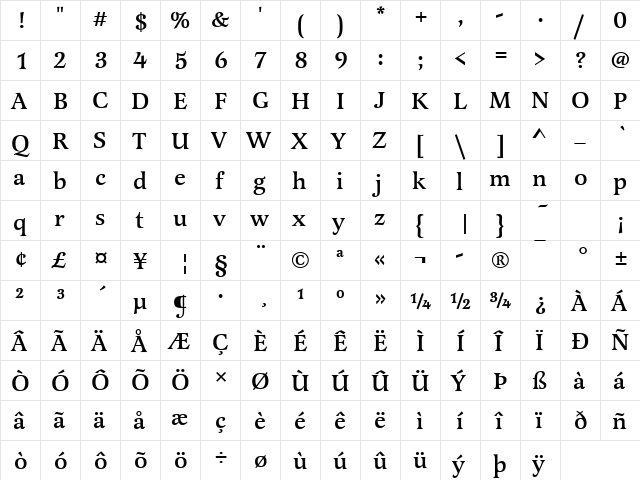
LatienneTMed Regular
Design Context for LatienneTMed Typeface
LatienneTMed offers clean, dependable letterforms without strong stylistic allegiance, making it a practical choice for designers who need flexibility.